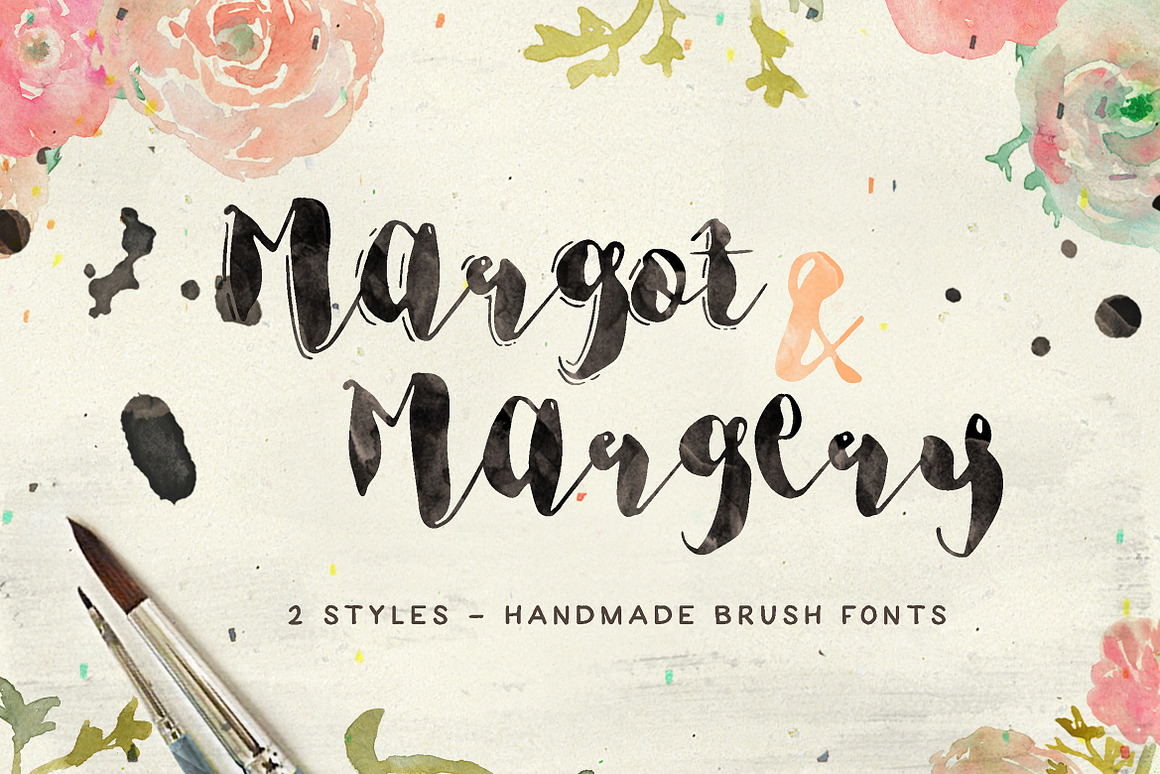
Margot & Margery Script Font
Margot & Margery Script Font is perfect for vintage boutique branding, antique shop signage, nostalgic greeting cards, retro cafe menus, heritage wedding invitations, classic book covers, artisan craft labels, vintage-inspired packaging, historical event materials, and timeless lifestyle brands. This charming script typeface excels in applications where vintage elegance, nostalgic appeal, and classic sophistication are fundamental design elements.
Margot & Margery Script Font is exciting because it captures the romantic charm and refined elegance of mid-century handwriting through its gracefully flowing letterforms and period-authentic character details. Its carefully crafted curves feature the distinctive rhythm and personality of classic feminine script writing, with elegant loops, refined connections, and sophisticated flourishes that evoke memories of handwritten letters and personal correspondence from a more elegant era.
The Margot & Margery Script Font family includes Regular, Bold, and Ornamental variations, each capturing different aspects of vintage script elegance and classic feminine handwriting. The family features extensive stylistic alternates, contextual ligatures, and decorative swashes that enhance the authentic vintage character. Period-appropriate ornaments include classic borders, vintage flourishes, and timeless decorative elements that complement the main character set perfectly.
Professional designers appreciate Margot & Margery Script Font for its ability to convey vintage sophistication, nostalgic charm, and timeless feminine elegance. The font's romantic presence works beautifully in applications where emotional connection and personal touch are paramount. Its distinctive personality makes it perfect for brands seeking to communicate heritage, quality craftsmanship, and connection to classic design traditions.
The nostalgic character of Margot & Margery Script Font transforms modern communications into charming celebrations of vintage elegance and classic style. Its authentic period appeal resonates with audiences seeking genuine quality and timeless beauty while maintaining professional design standards for contemporary commercial applications.